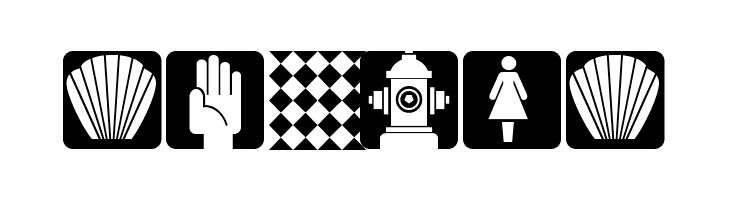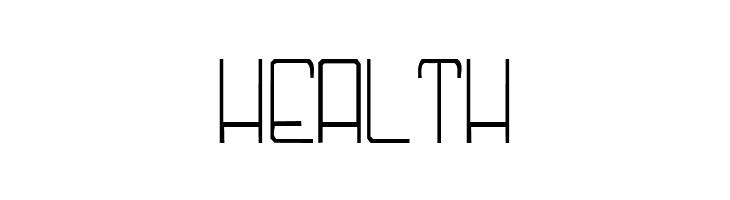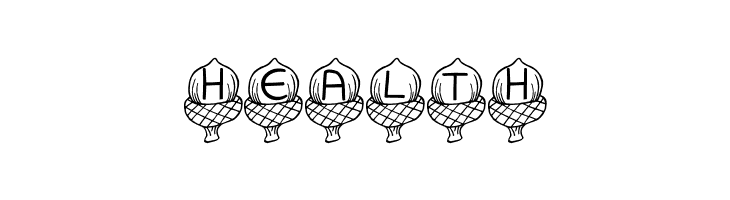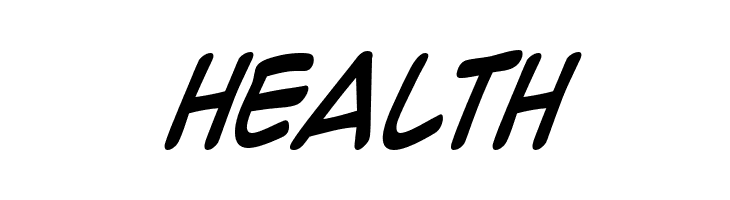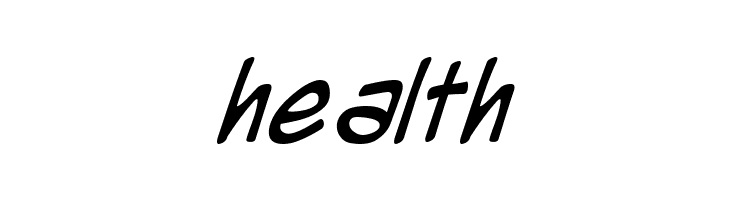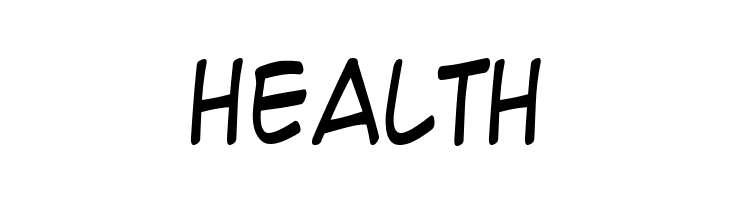
A bold, geometric collection of symbols and shapes within squares.
A modern, geometric font with a futuristic and minimalist design.
A whimsical, acorn-themed decorative font with uppercase letters.
A bold, dynamic script font with a strong, energetic presence.
A dynamic, italic script font with fluid strokes and a playful vibe.
A playful, handwritten-style font with smooth, rounded edges.